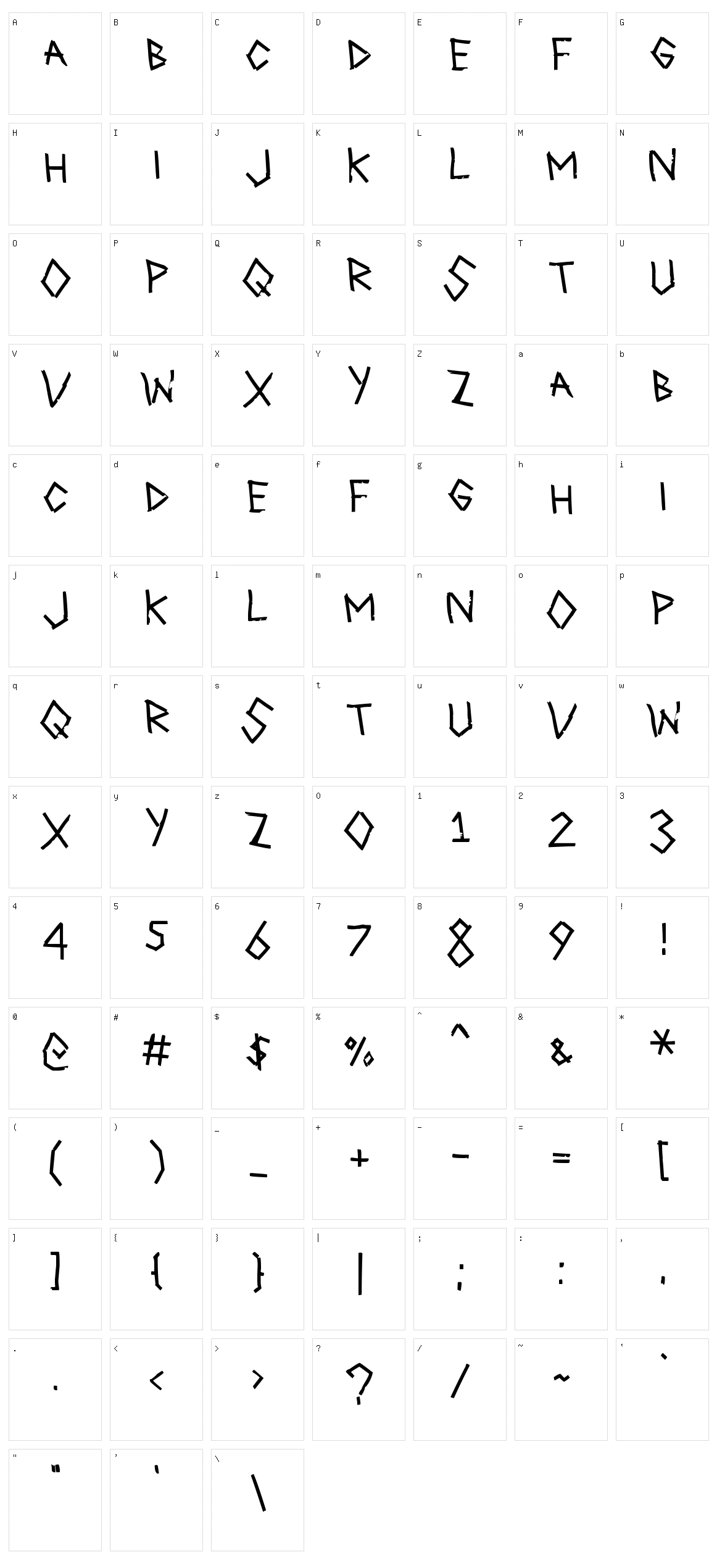
The free font Correction Tape is carefully designed by GGBotNet, showcasing a thoughtful balance of creativity and usability and falls under the Distorted font style. When you download the ZIP file, it contains only 43.11 KB of font files, making it lightweight and quick to download. Please review the license details below to understand permitted usage and distribution rights. If license information is not available, we recommend using this font for personal projects only or contacting the author directly for commercial usage permissions.